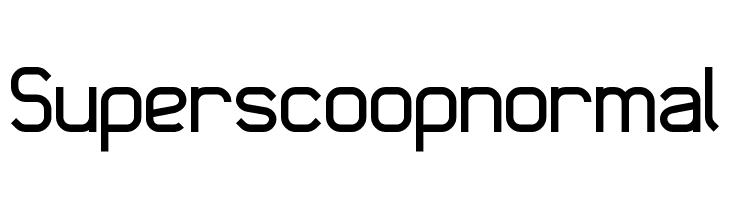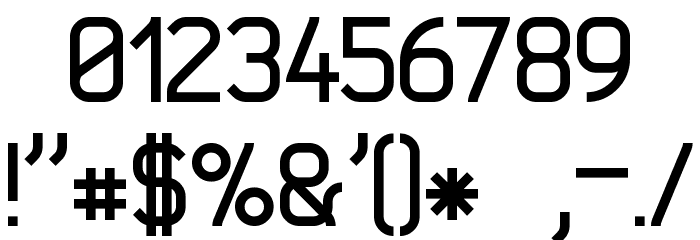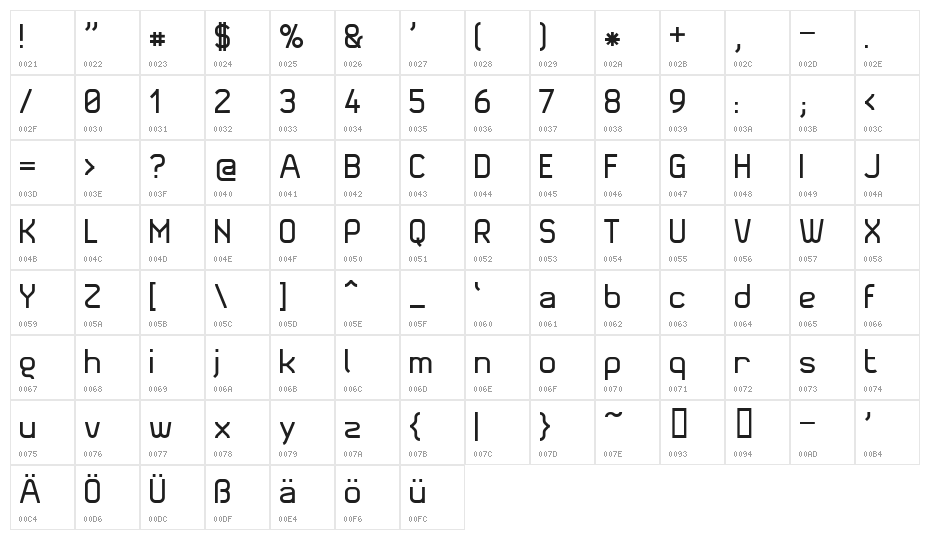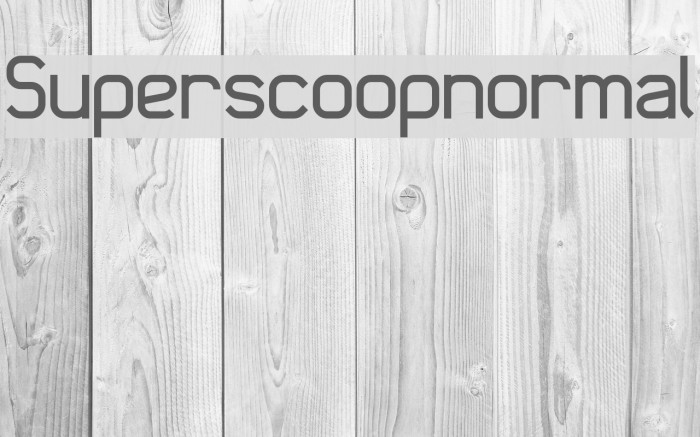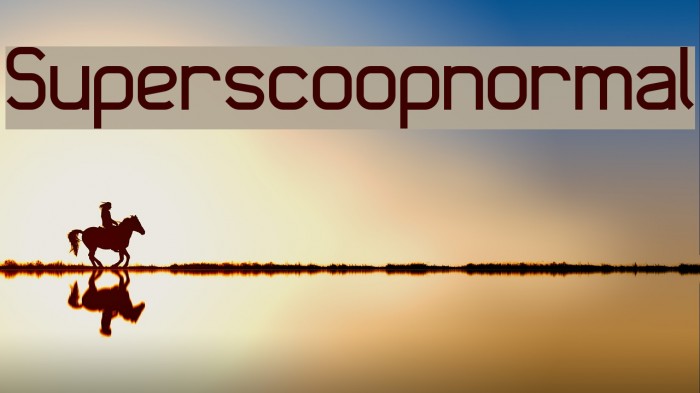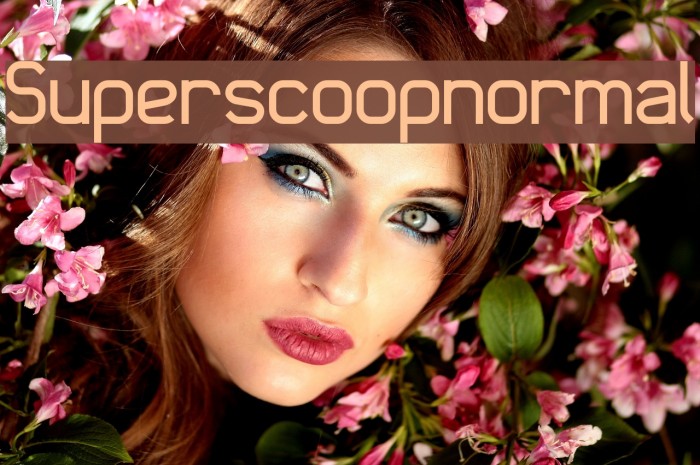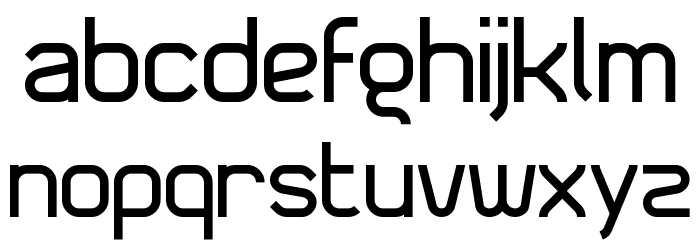
Superscoopnormal Font
Superscoopnormal Description
This font features a modern and geometric design with clean lines and a structured appearance. The uppercase letters are uniform in height, with a slight angularity that adds a contemporary feel. The lowercase letters maintain a consistent style, with rounded edges that soften the overall look. The numerals are clear and legible, matching the geometric style of the alphabet. Special characters are designed to complement the alphanumeric characters, ensuring a cohesive appearance across all elements. This font is versatile, suitable for both digital and print media, and can be used in various design contexts.
| Proposed Projects | Ideal for branding, digital interfaces, editorial design, and advertising campaigns. |